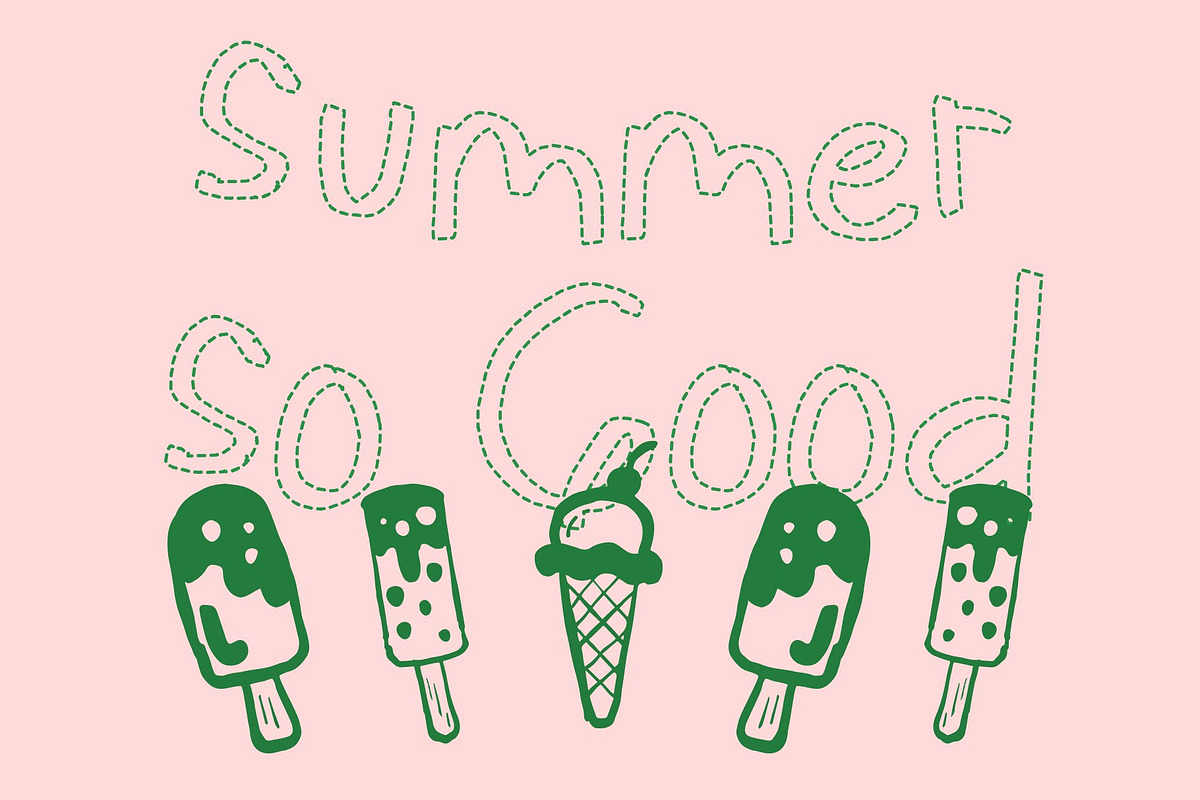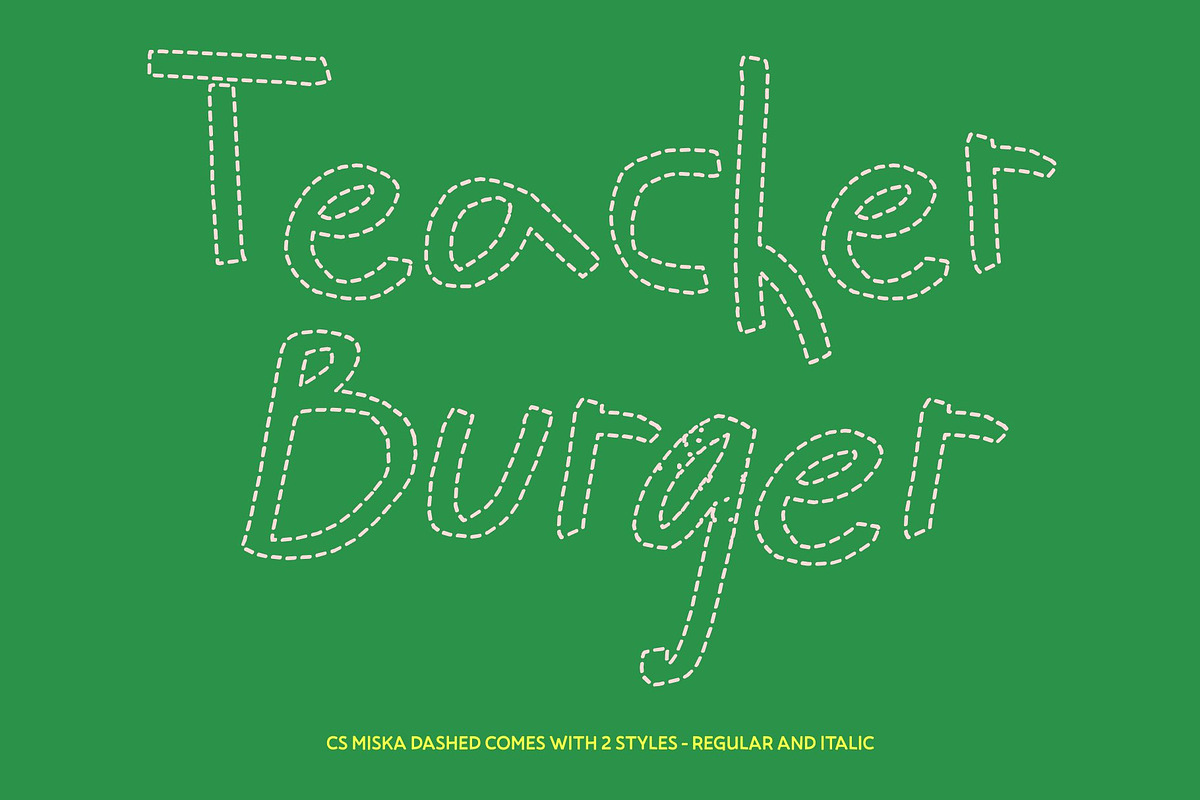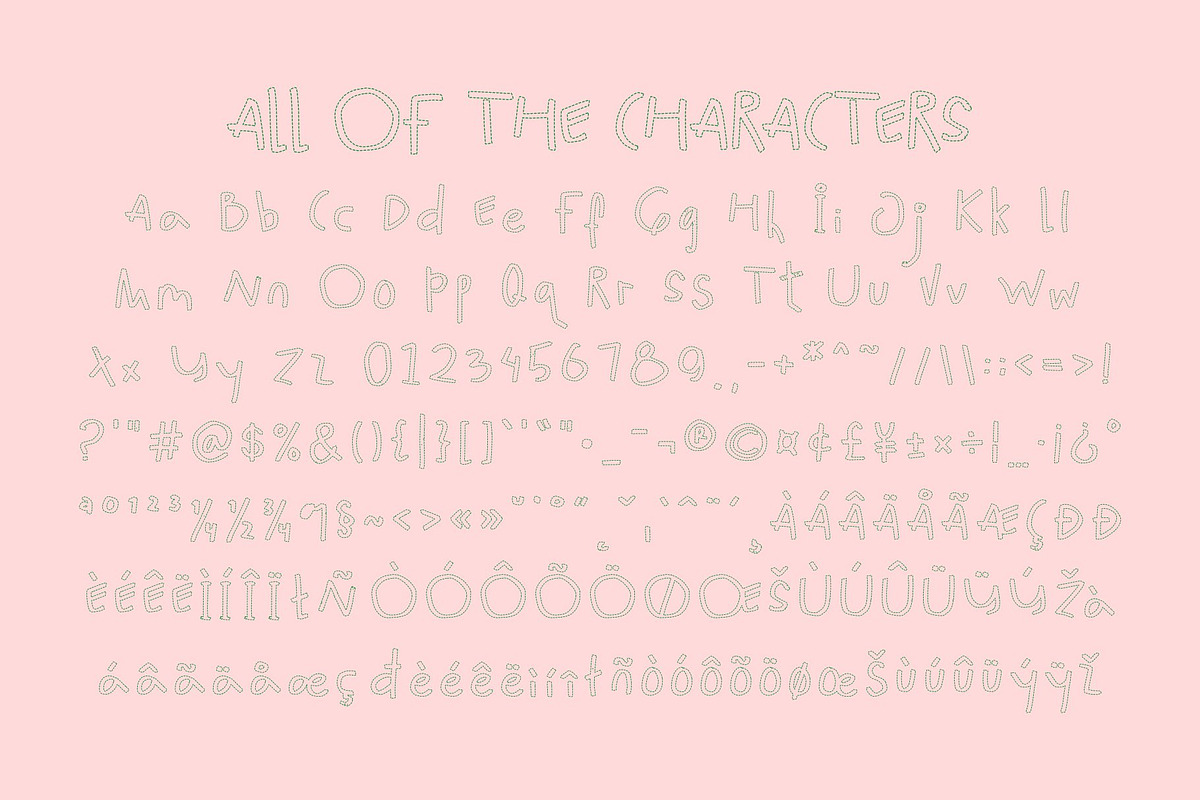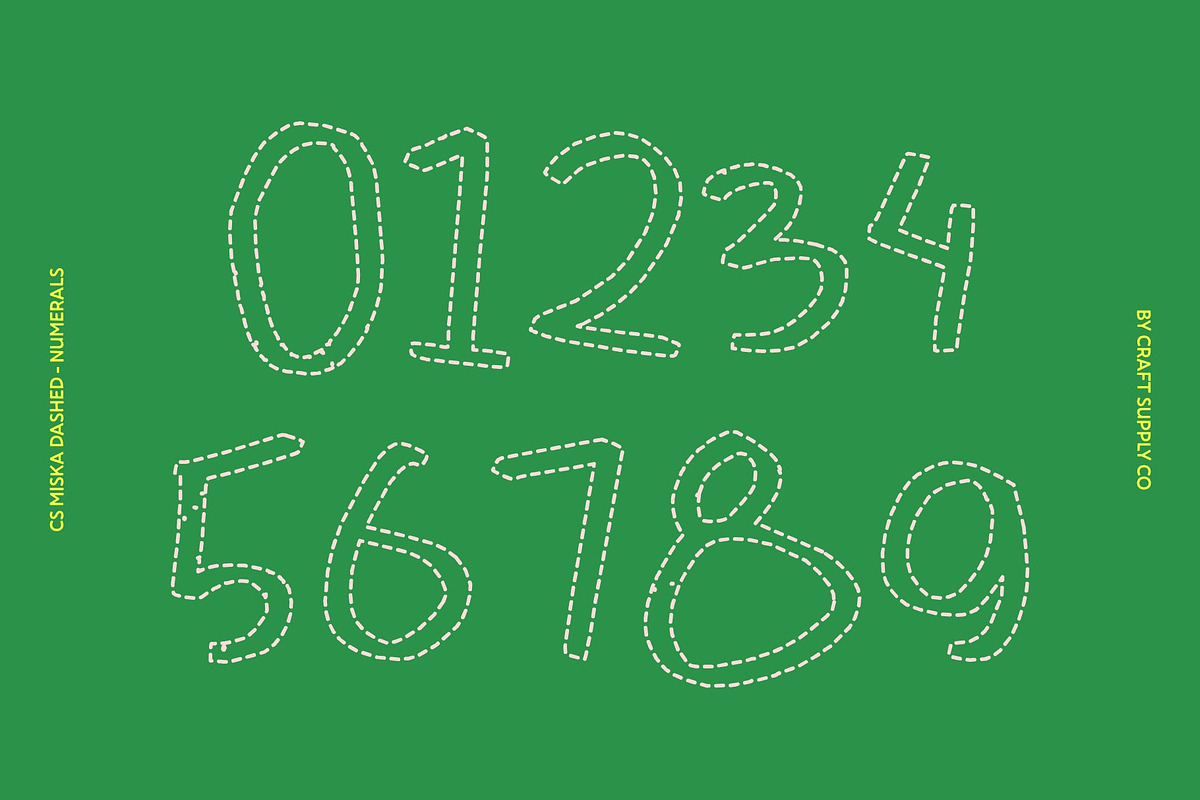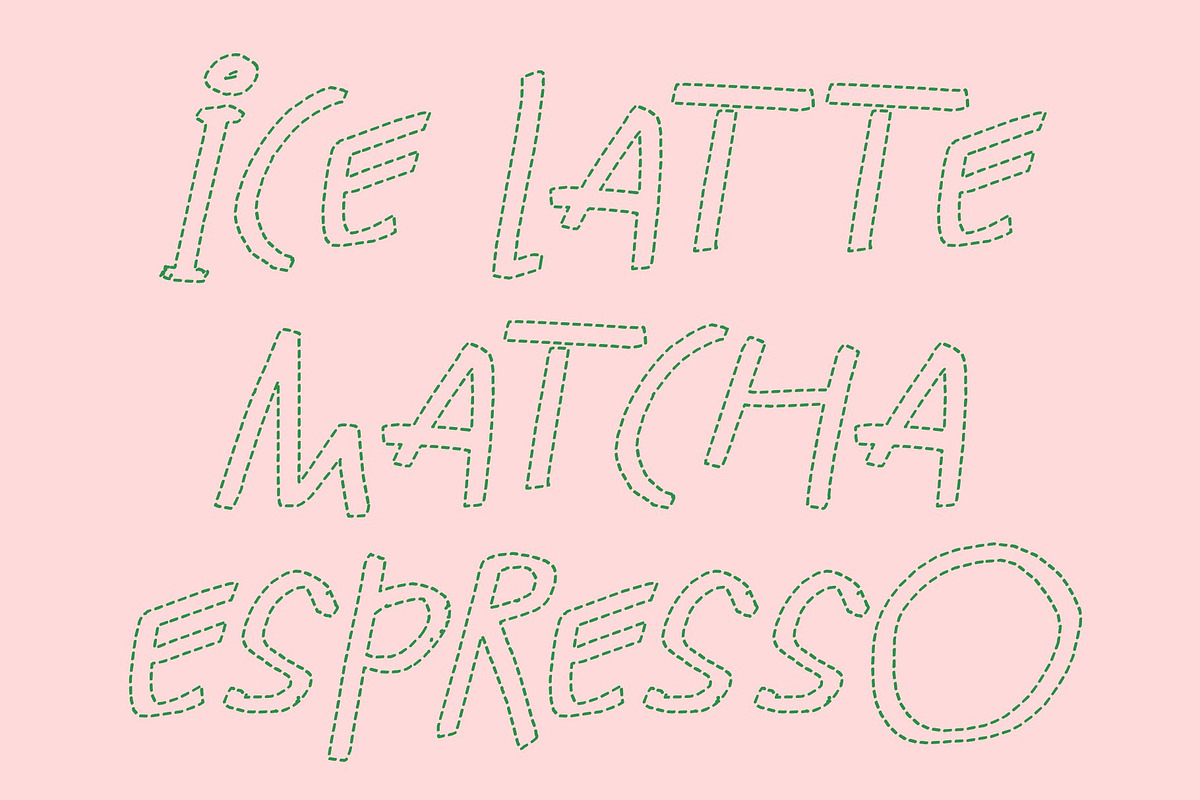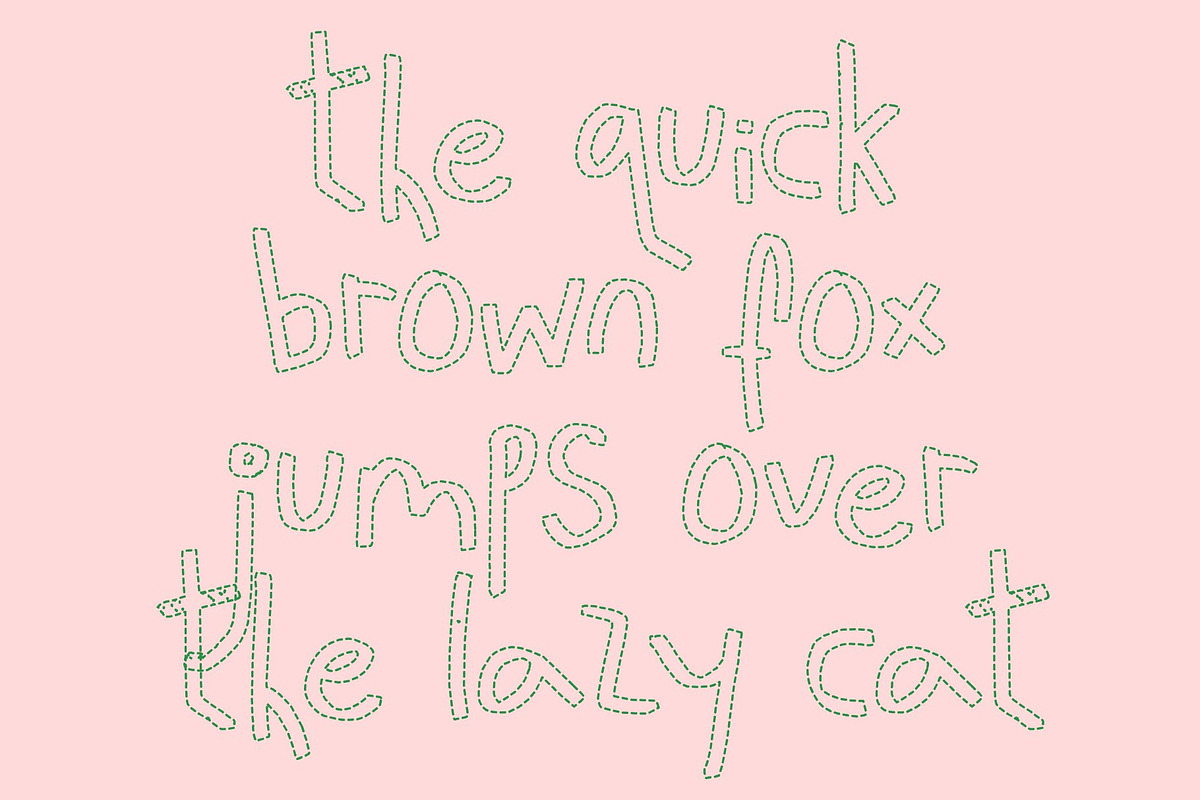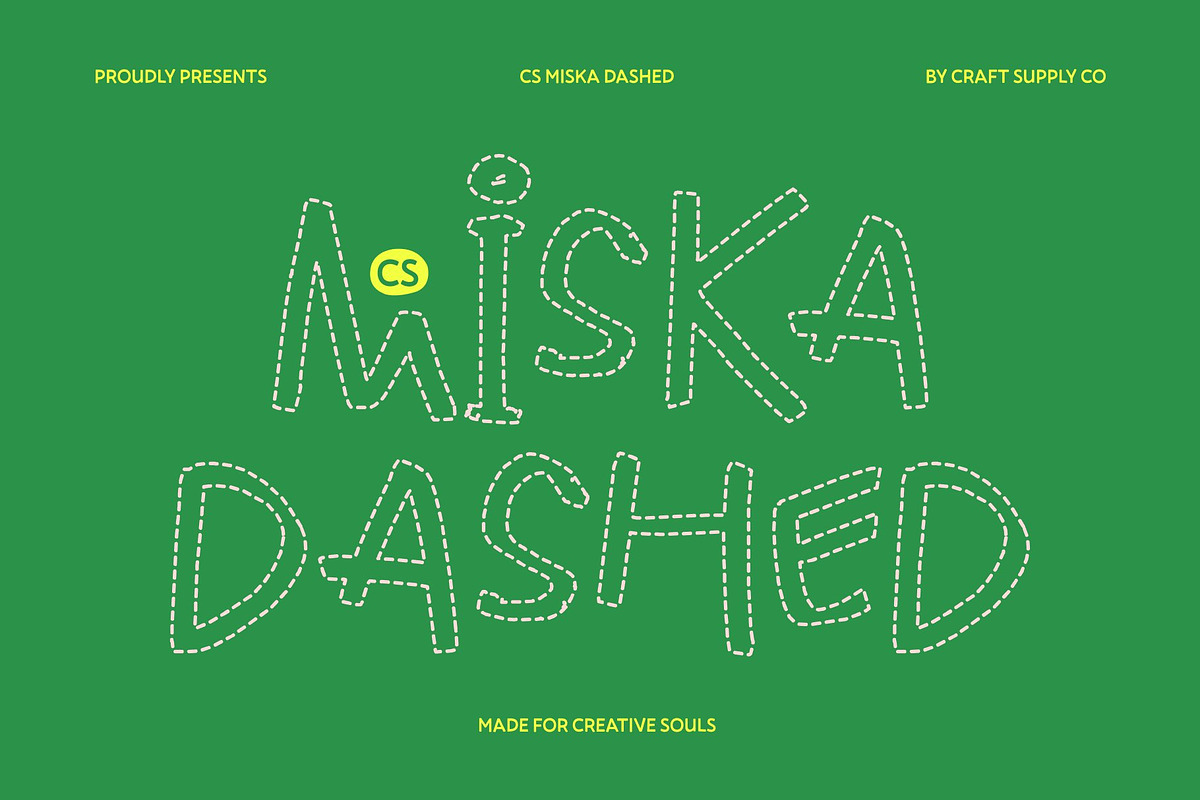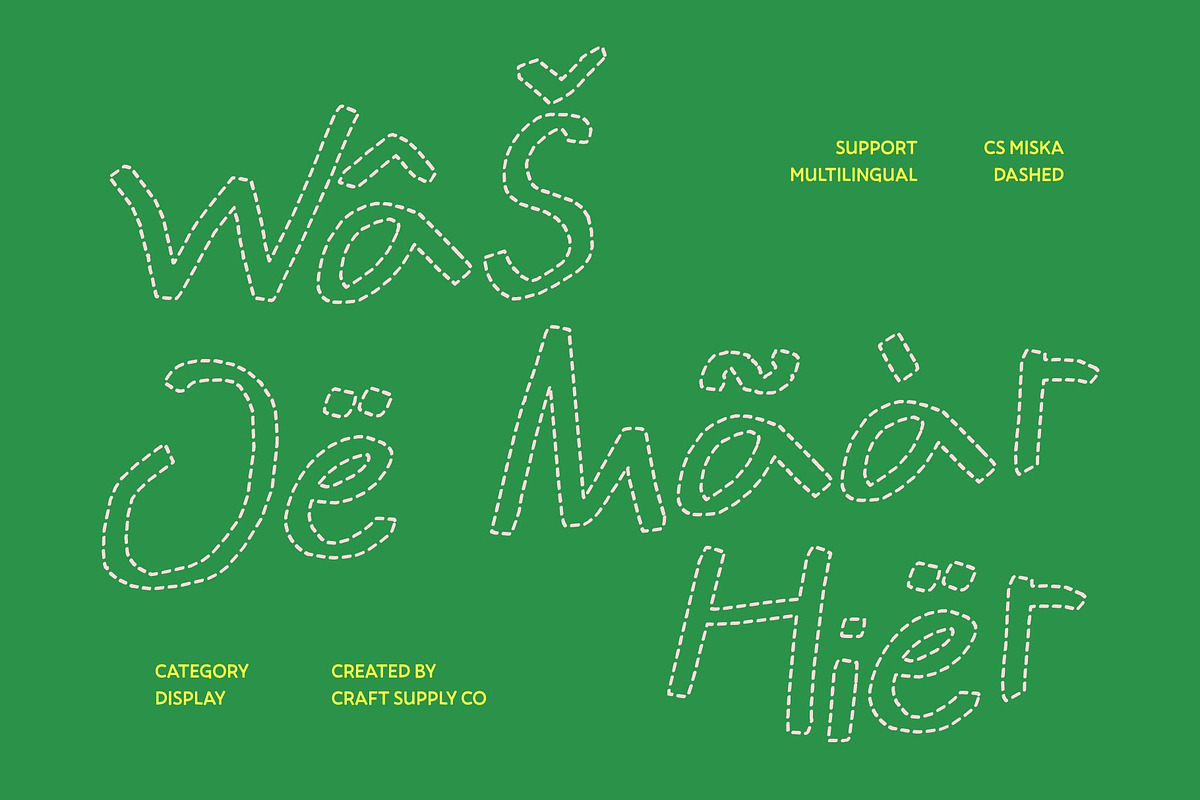
CS Miska Dashed
CS Miska Dashed – Where Mess Meets Playfulness
Messy Handwritten Display with Energetic Charm This is a gritty and playful display font built from irregular, scribbled strokes that feel spontaneous and full of life. The dashed structure adds a broken, sketch-like texture that enhances its raw, handcrafted personality perfect for designs that embrace freedom and fun.
Irregular Shapes for Creative Expression Each character is intentionally uneven and expressive, creating a quirky, hand-drawn aesthetic. These imperfect forms give the font a bold, experimental feel, making it ideal for children’s visuals, playful posters, and unconventional branding that breaks design rules in a fun way.
Playful Energy for Dynamic Designs With its energetic and unrestrained style, this font injects movement and personality into every layout. It transforms simple words into lively visual elements, making it a great choice for party invitations, youth graphics, and expressive editorial compositions.
Versatile for Expressive and Artistic Use Despite its messy charm, the font remains highly adaptable for creative projects that celebrate imperfection. From casual branding and whimsical packaging to digital content and experimental layouts, this font delivers a bold, memorable, and artistic handcrafted look.
CS Miska Dashed Regular
CS Miska Dashed Italic